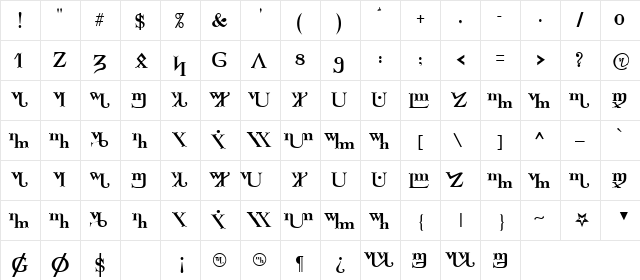
ThebGL Normal
Design Context for ThebGL Typeface
ThebGL is a composed and adaptable typeface that performs quietly and consistently across a wide range of design contexts.